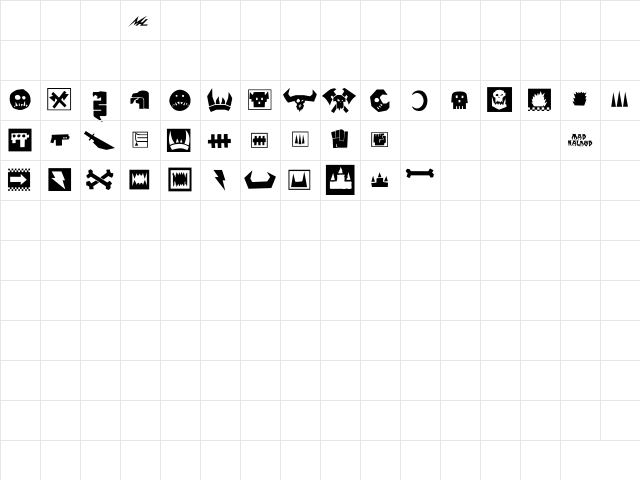
Ork_Clan_Glyphs Bold Font Preview
Ork_Clan_Glyphs Bold
Design Context for Ork_Clan_Glyphs Typeface
Ork_Clan_Glyphs is a composed and adaptable typeface that performs quietly and consistently across a wide range of design contexts. The heavy weight commands attention and anchors typographic hierarchies.